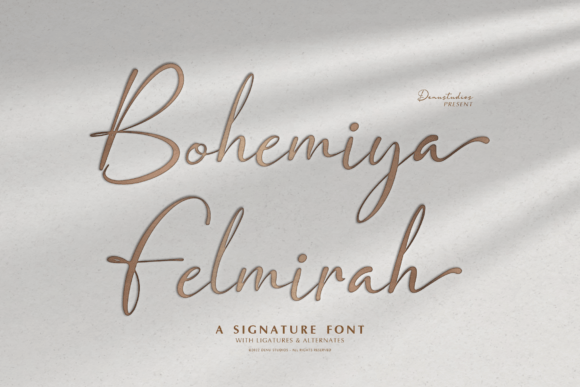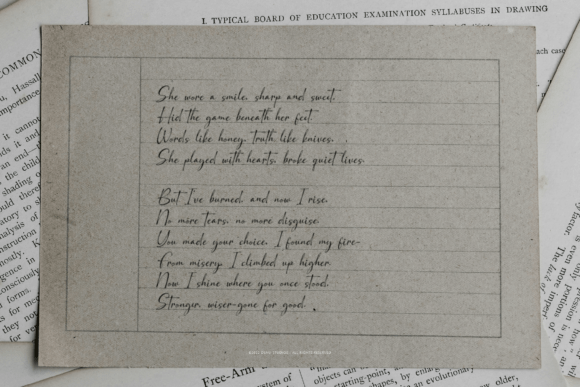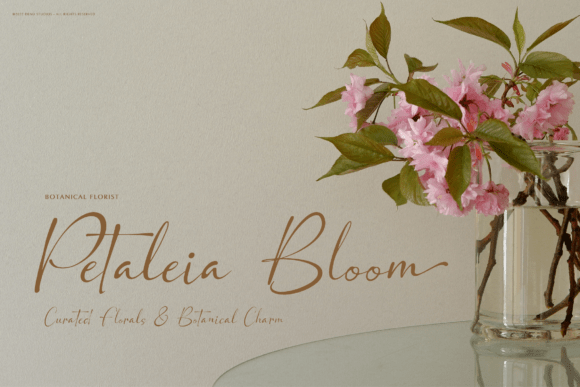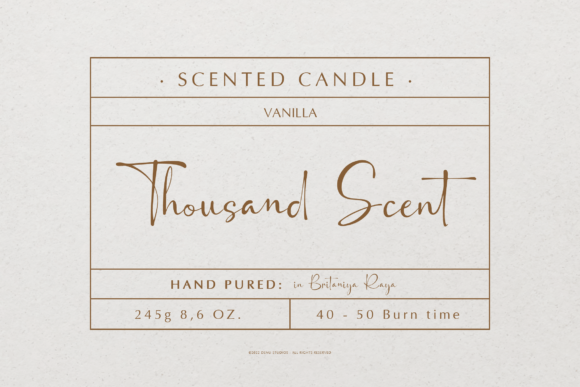
Bohemiya Felmirah Font
About the Bohemiya Felmirah Font
The Bohemiya Felmirah Font is here to transform your projects with its distinctive character and style. Bohemiya Felmirah is a graceful signature font that captures the essence of elegance and femininity. With fluid strokes and delicate curves, this handwritten script is perfect for personal branding, luxury packaging, beauty logos, and modern invitations. Its natural flow and stylish ligatures create a handcrafted look that feels personal and sophisticated.
Bohemiya Felmirah excels in applications requiring a touch of refined femininity, such as logos for beauty brands, wedding invitations, or short, impactful headlines. It works beautifully on packaging for high-end products or in social media graphics where visual appeal is key. However, its delicate nature makes it unsuitable for body text or lengthy paragraphs; readability suffers at smaller sizes.
Pairing Bohemiya Felmirah with a clean sans-serif like Montserrat for body copy provides excellent contrast and enhances legibility. For a more playful feel, consider pairing it with a geometric sans-serif such as Futura. Alternatively, a classic serif like Garamond can create a sophisticated and timeless combination.
The font’s overall personality is elegant and sophisticated, conveying a sense of understated luxury and femininity. It’s best suited for brands targeting a female demographic or those wishing to project an air of high-end quality and craftsmanship.